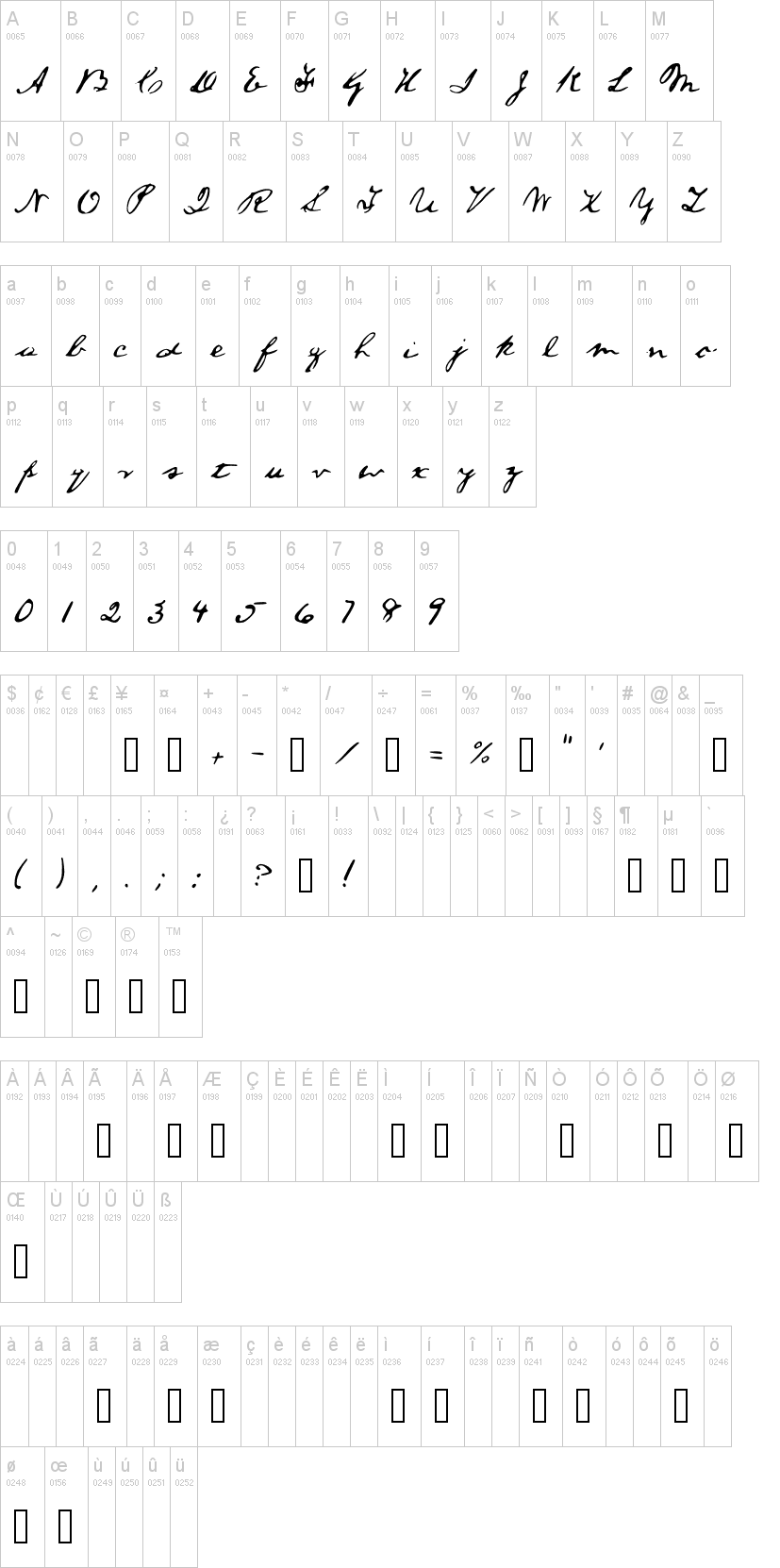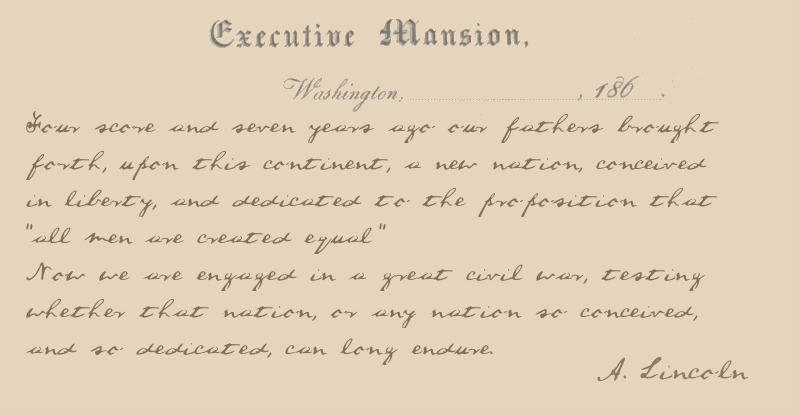
Шрифт A Lincoln Font
This first attempt at font creation was born out of my frustration at not being able to find a font resembling Abe Lincoln's handwriting. ALincolnFont is based on a manuscript copy of the Gettysburg Address, written in Lincoln's own hand, archived at the Library of Congress. Below is an example of ALincolnFont under the White House letterhead.